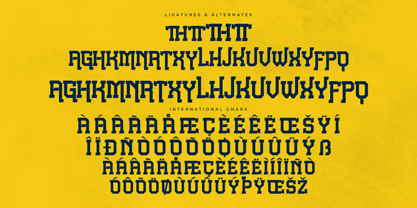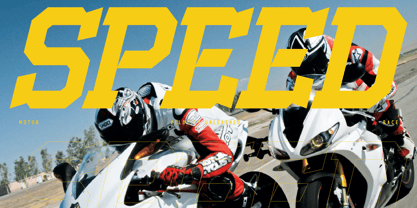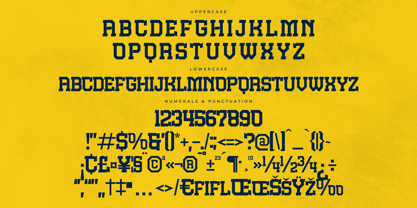
Grante
by Letterena Studios
The Grante Font Family was designed by Heru Utama Putra and published by Letterena Studios. Grante contains 2 styles and family package options.
Grante is a bold and assertive serif font. No matter the topic, this font will be an
incredible asset to your fonts' library, as it has the potential to elevate any
creation.